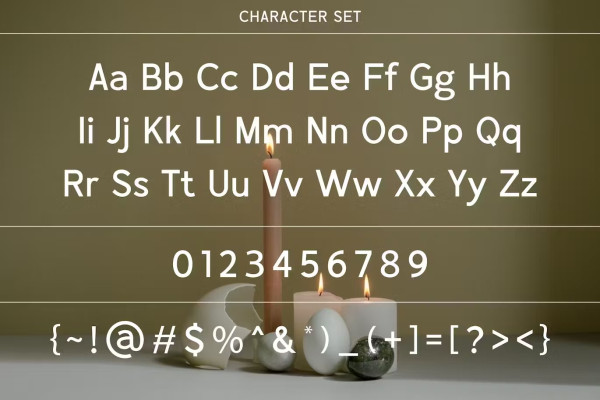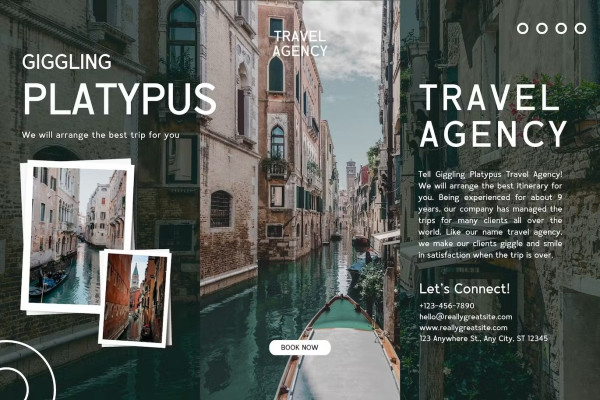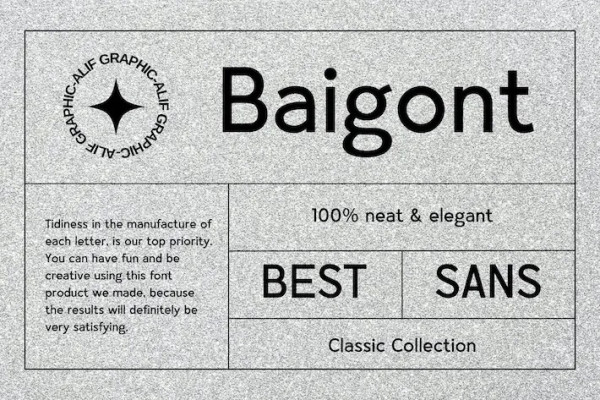
Baigont Font – A beautiful series of letters is encapsulated in this ‘Baigont’ font. Neat lettering is perfect for writing needs that are modern and pleasing to the eye, there is a Modern impression but still looks Elegant when used for writing. Tidiness in the manufacture of each letter, is our top priority. You can have fun and be creative using this font product we made, because the results will definitely be very satisfying.
Baigont Font